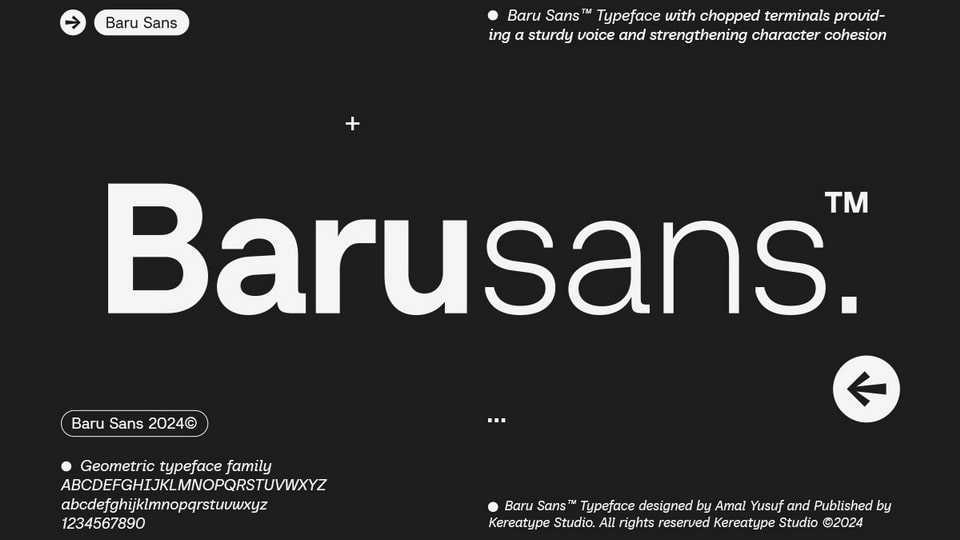
Download Baru Sans font, a geometric typeface that strikes a balance between the precision of geometric foundations featuring chopped terminals with distinctive 90º strokes to reinforce design aesthetics.
Designer: Kereatype Studio